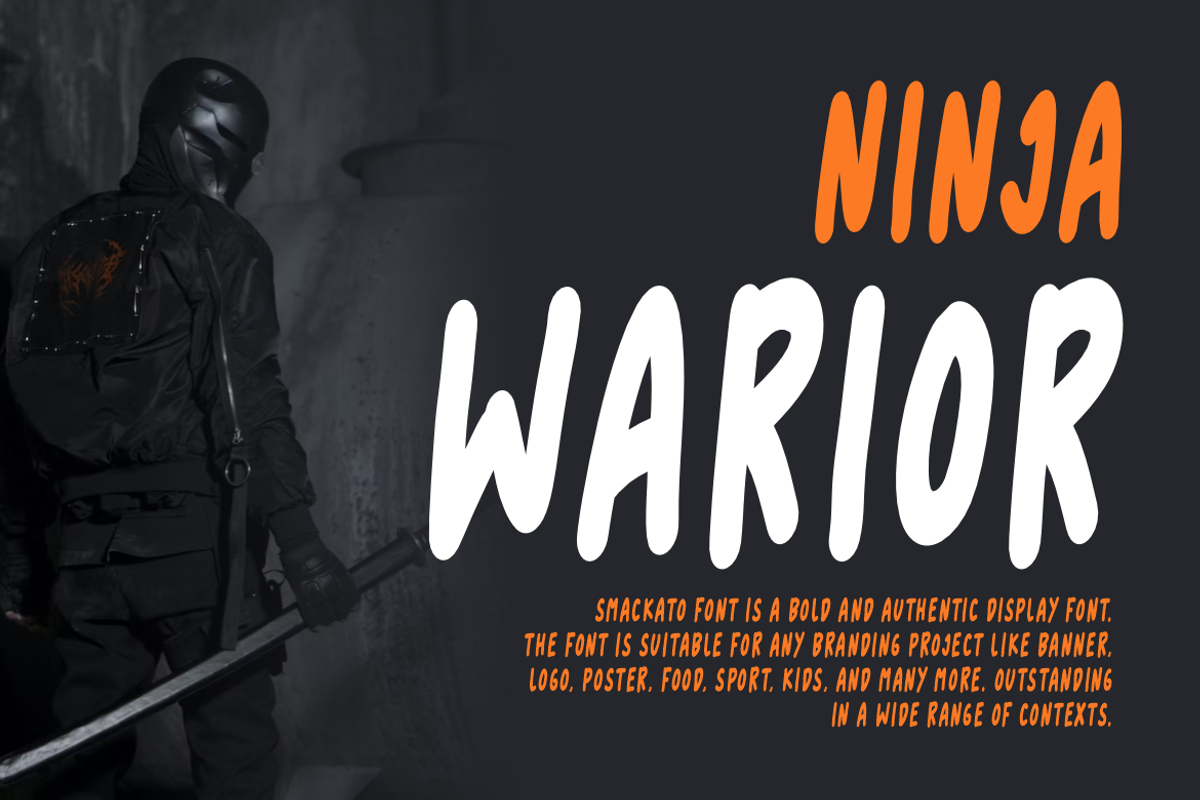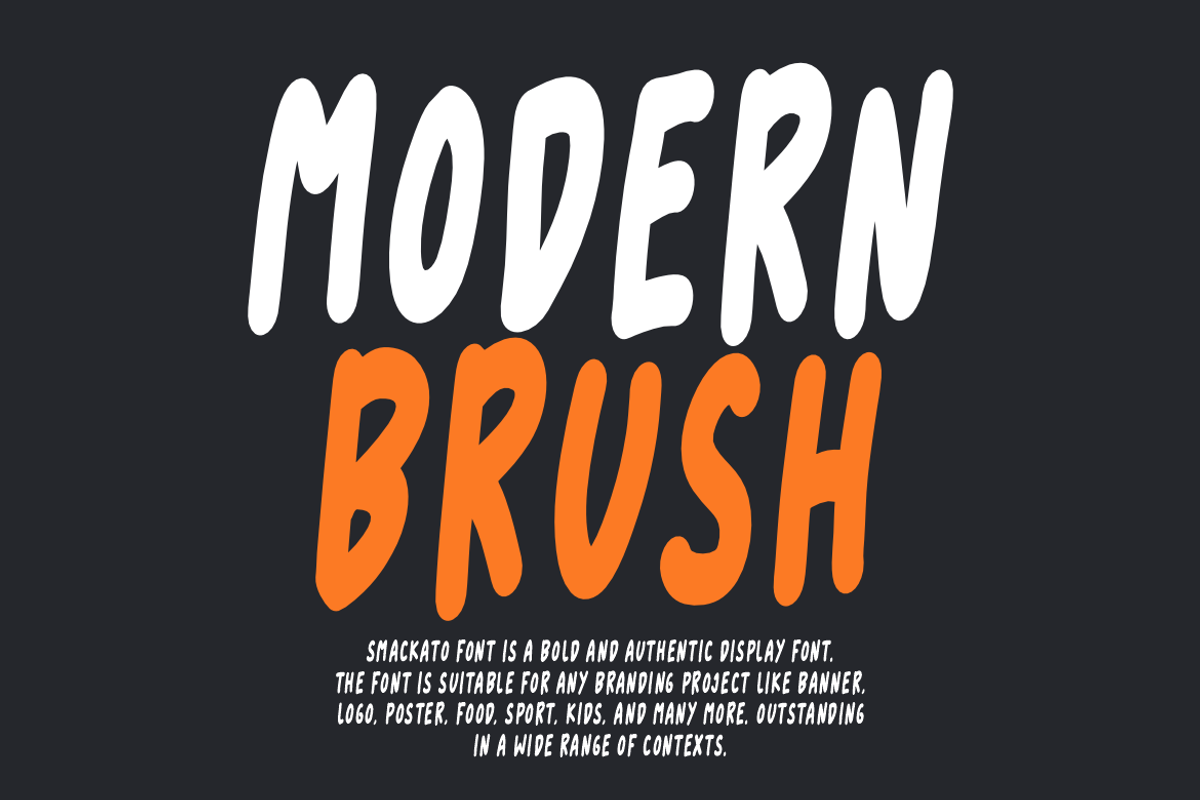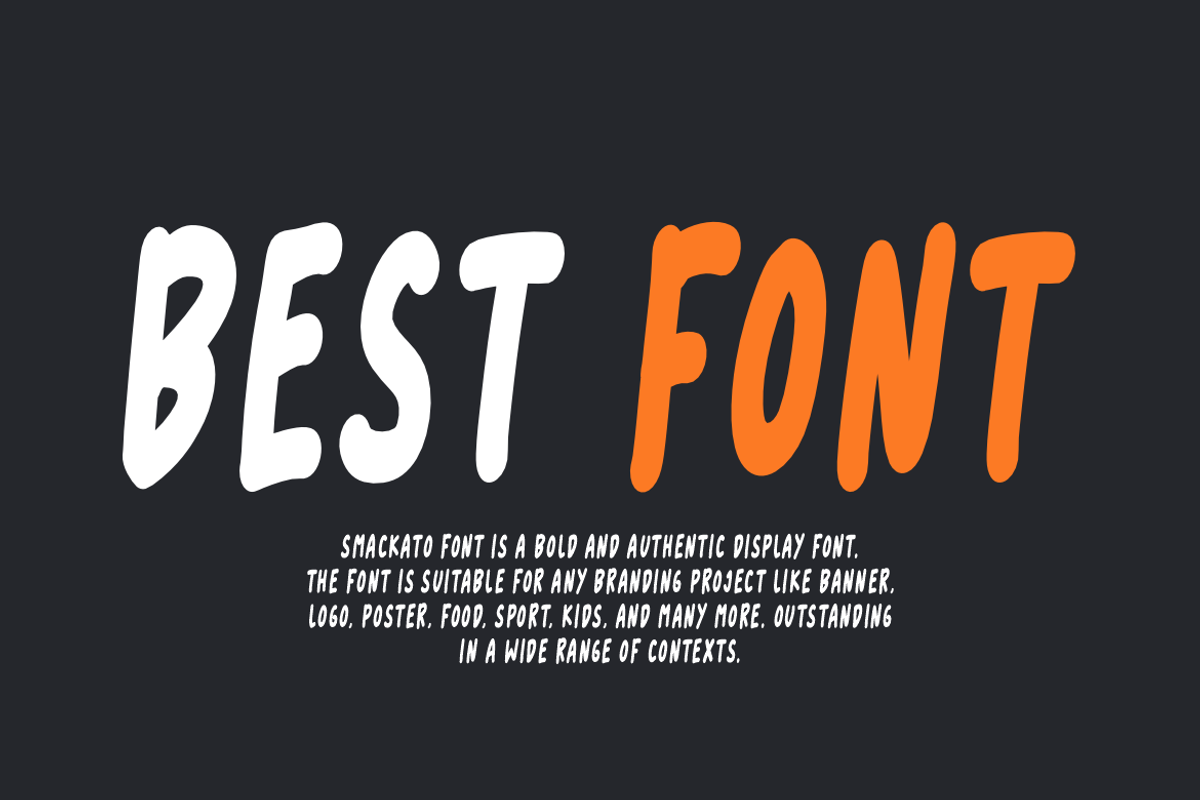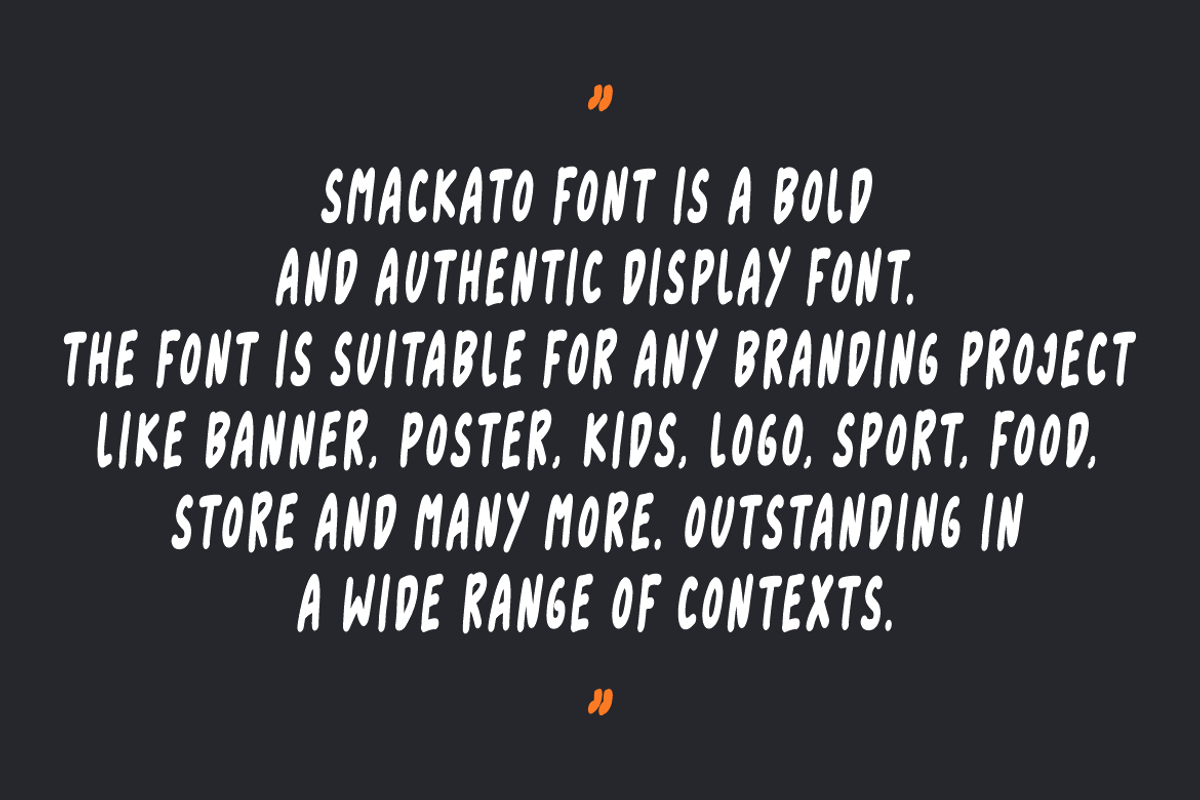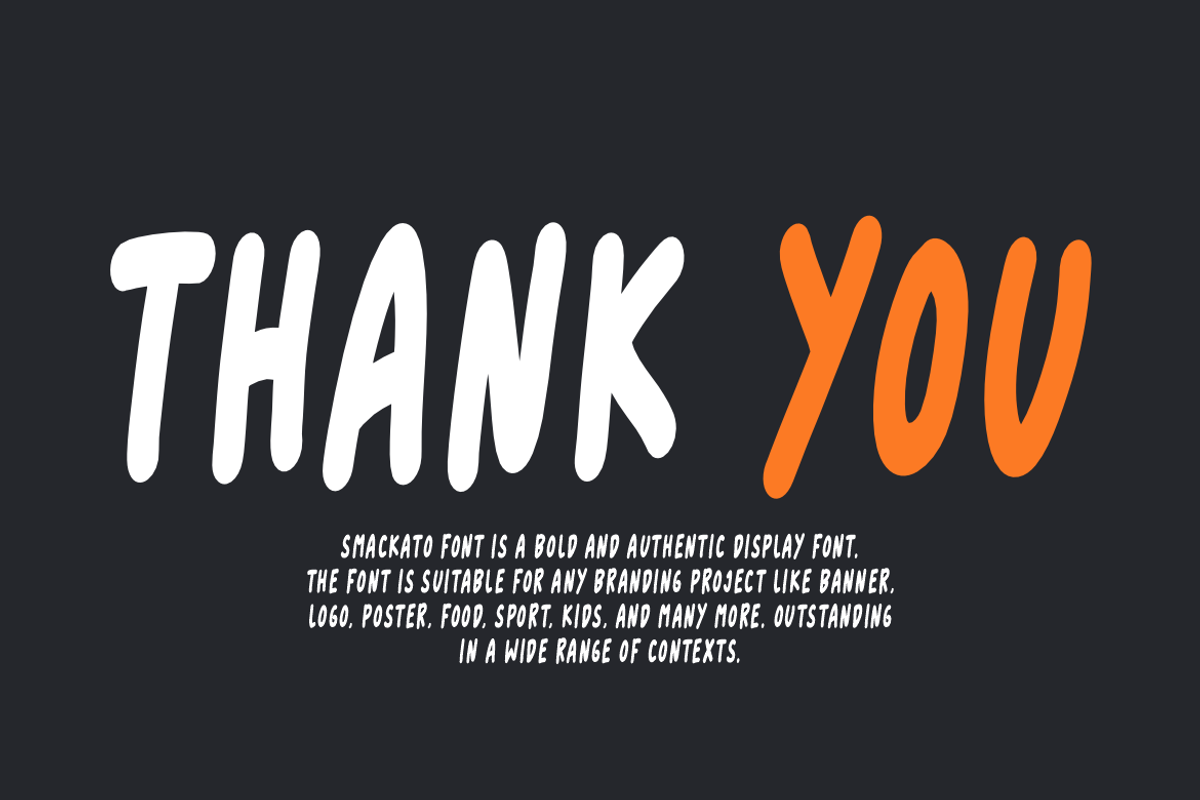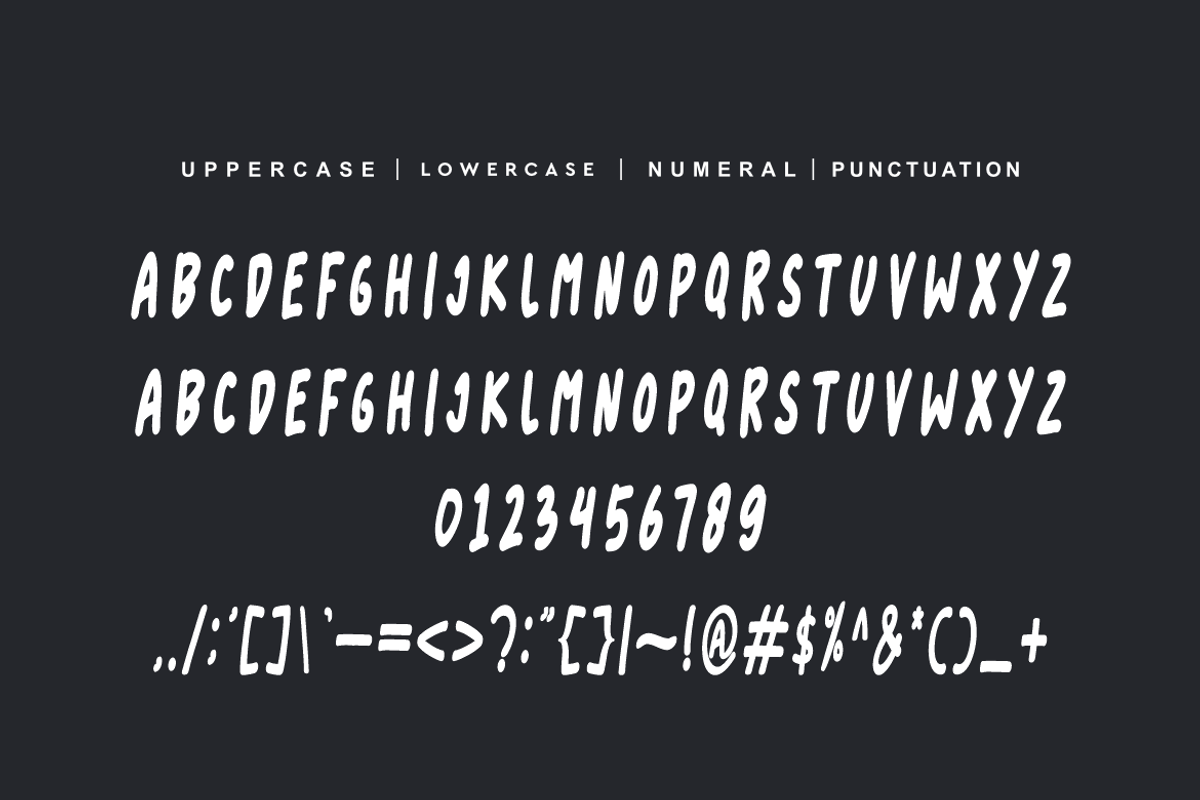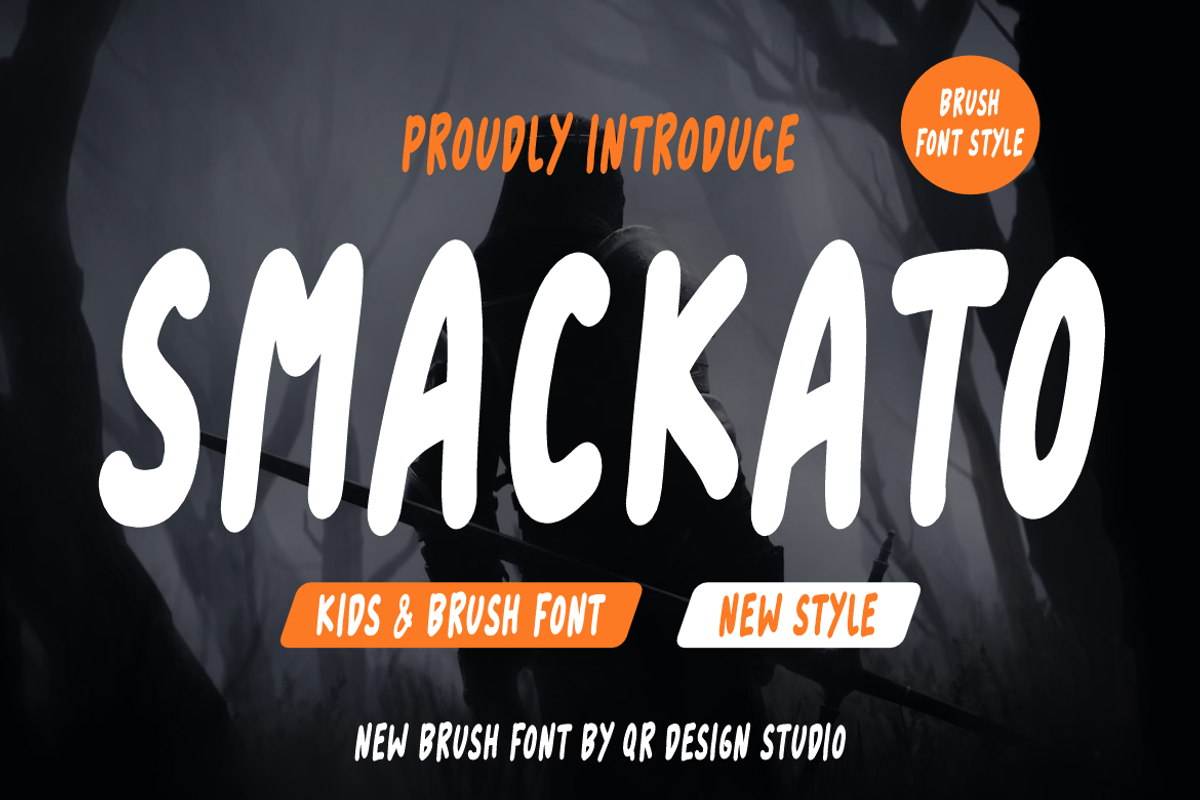
Smackato - Brush Font
Smackato Brush Font is a bold and authentic display font. The font is suitable for any branding project like logo, food, poster, kids, and many more. Outstanding in a wide range of contexts.